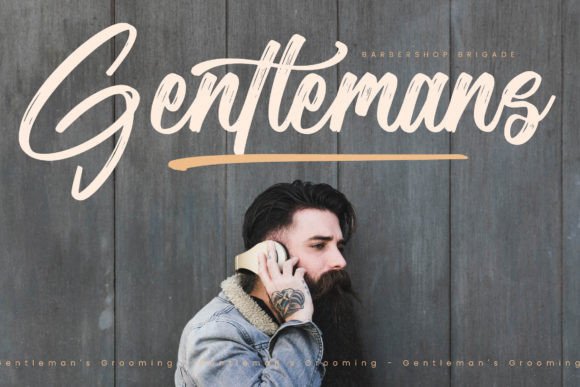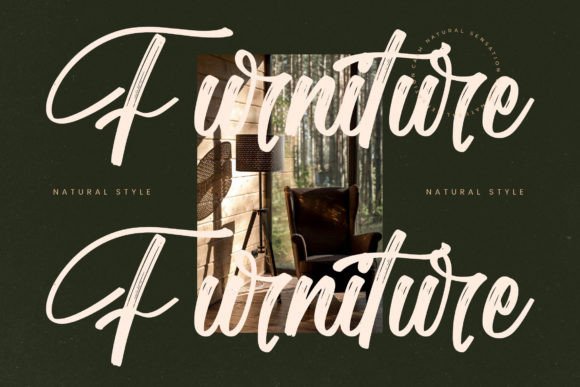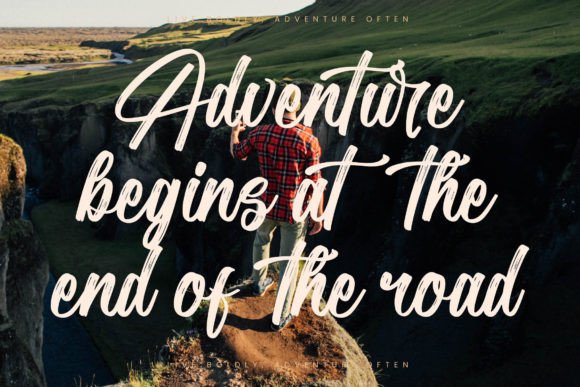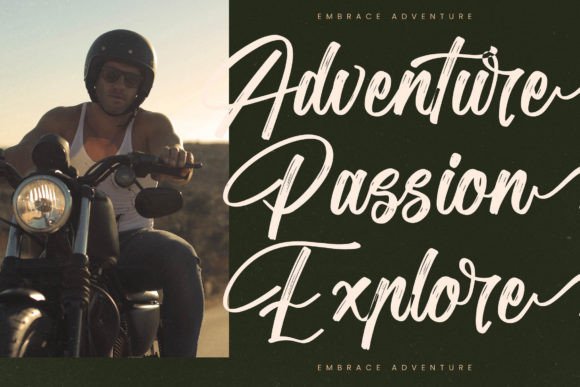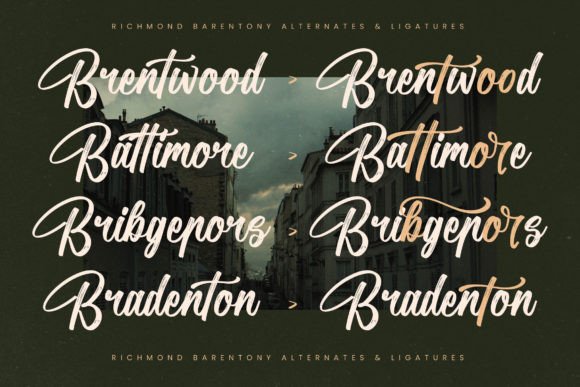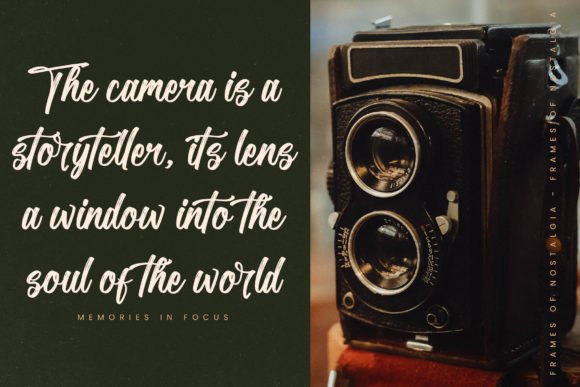
Introduction to Richmond Barentony Font
Richmond Barentony is a modern and charming handwritten font that exudes elegance and personality.
Its graceful, flowing strokes and sophisticated character make it perfect for upscale invitations, personal branding, and chic editorial designs Elevate your projects with the refined allure and warmth of this font.